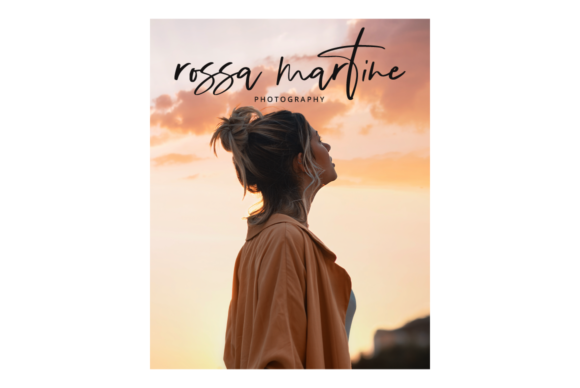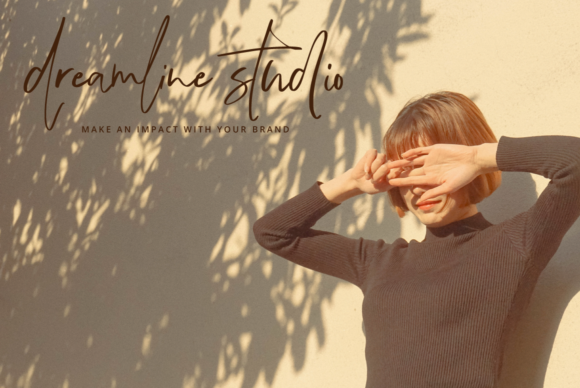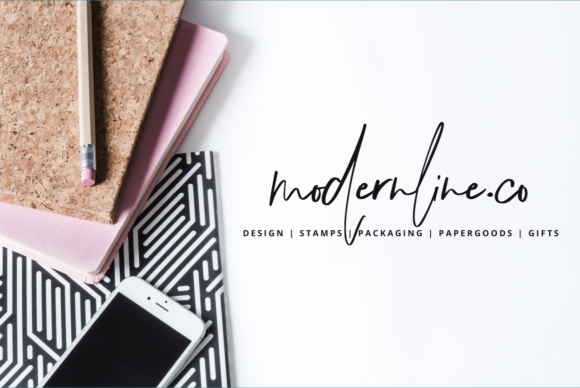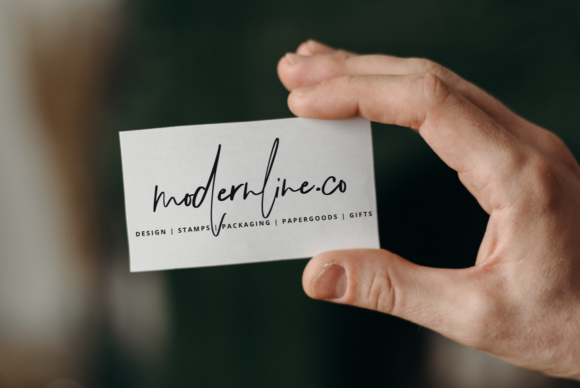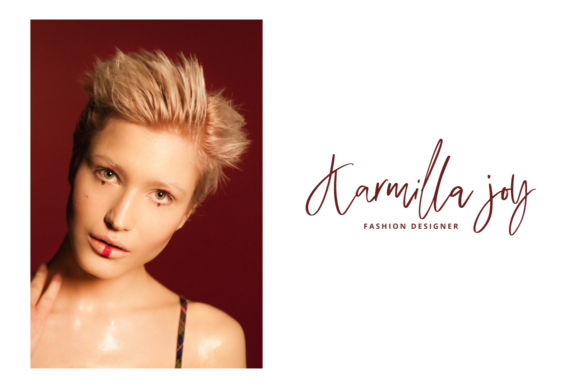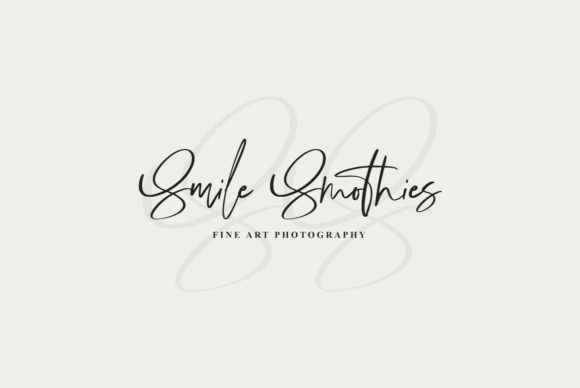
Dublishine Font: The Perfect Thin Script Font for Your Creative Projects
Are you a designer or crafter looking for a unique and versatile font to elevate your creative projects? Look no further than Dublishine, a thin script font that is clean, quirky, and perfect for a variety of applications. In this article, we’ll take a closer look at the features and benefits of Dublishine, and explore how it can be used to enhance your logos, branding, social media, and DIY projects.
What is Dublishine Font?
Dublishine is a thin script font that is designed to be both elegant and playful. Its clean lines and delicate curves make it perfect for creating sophisticated logos, branding materials, and social media graphics. At the same time, its quirky charm adds a touch of whimsy and personality to any project.
Key Features of Dublishine Font
- Thin script font: Dublishine is a thin script font that is perfect for creating elegant and sophisticated text.
- Clean and quirky design: The font’s clean lines and quirky charm make it perfect for a variety of creative projects.
- PUA encoded: Dublishine is PUA (Private Use Area) encoded, which means that you can access all of the glyphs and swashes with ease.
- Perfect for logos and branding: Dublishine is perfect for creating unique and memorable logos and branding materials.
- Great for social media and DIY projects: The font is also great for creating social media graphics and DIY projects, such as craft tutorials and inspirational quotes.
Benefits of Using Dublishine Font
So why choose Dublishine font for your creative projects? Here are just a few benefits of using this versatile font:
- Unique and memorable: Dublishine is a unique and memorable font that will help your project stand out from the crowd.
- Easy to use: The font is PUA encoded, which makes it easy to access all of the glyphs and swashes.
- Versatile: Dublishine can be used for a variety of creative projects, from logos and branding to social media and DIY projects.
- High-quality design: The font is designed to be high-quality and professional, making it perfect for commercial projects.
How to Use Dublishine Font
Using Dublishine font is easy! Here are a few tips for getting started:
- Choose the right size: Dublishine is a thin script font, so it’s best to use it at larger sizes to ensure that it remains legible.
- Experiment with glyphs and swashes: The font is PUA encoded, which means that you can access all of the glyphs and swashes with ease. Experiment with different combinations to add personality to your text.
- Pair it with other fonts: Dublishine can be paired with other fonts to create a unique and interesting look. Try pairing it with a bold sans-serif font for a striking contrast.
Dublishine font is a versatile and unique thin script font that is perfect for a variety of creative projects. Its clean lines, quirky charm, and PUA encoding make it easy to use and customize. Whether you’re a designer or crafter, Dublishine is a great choice for logos, branding, social media, and DIY projects. So why not give it a try and see how it can elevate your creative projects?